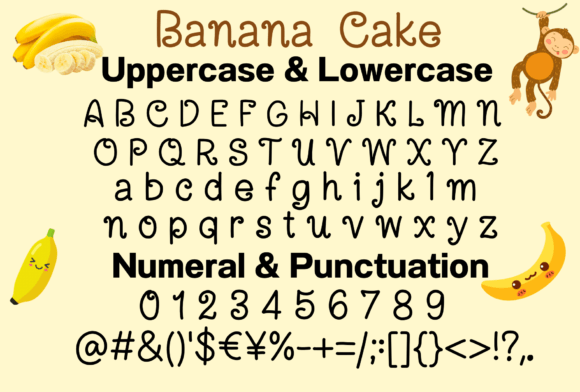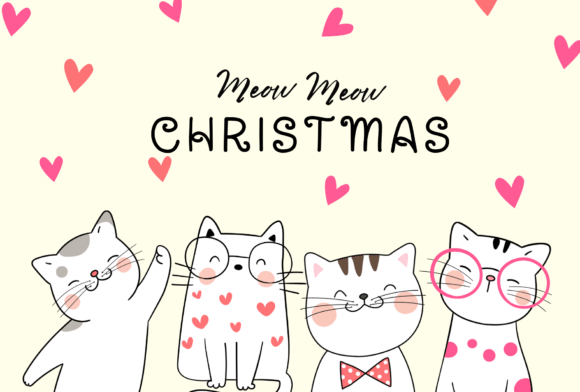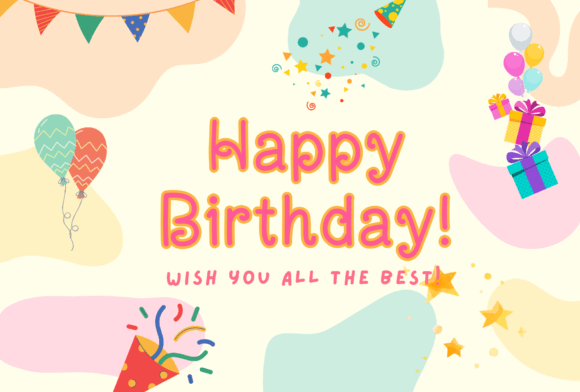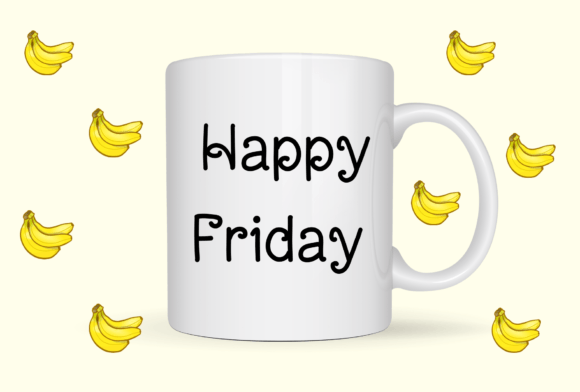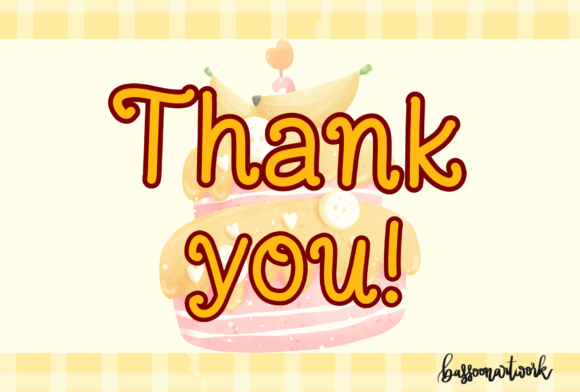
Getting Creative with the Perfect Font
Do you remember the feeling of excitement when you first started a new art project, surrounded by endless possibilities and a blank canvas waiting to be filled? For designers, this moment is all too familiar. It’s the spark that ignites the creative process, and the thrill of bringing a unique idea to life.
One of the most delightful ways to express this creativity is through typography. And that’s where the Banana Cake Font comes in – a charming, handwritten font that’s as sweet as its name suggests. This playful font is perfect for adding a personal touch to your designs, making it an ideal choice for special occasions like birthdays, Christmas, Easter, Mother’s Day, and Valentine’s Day.
As a designer, you’ll love the Banana Cake Font for its uniqueness and versatility. It’s a valuable addition to any font collection, and its adorable design makes it a must-have for creating eye-catching designs that stand out from the crowd.
Banana Cake Font Key Features
- Font Family: Banana Cake Font is a unique, handwritten font designed to evoke the feeling of a warm, comforting banana cake.
- Unique Characteristics: Features a playful, cursive script with a mix of uppercase and lowercase letters, making it ideal for adding a personal touch to designs.
Designer Review: Banana Cake Font
As a designer, I was excited to dive into the world of Banana Cake Font. Here’s my honest review.
- Unique and playful personality: Banana Cake Font has a quirky and whimsical feel that’s perfect for adding a touch of fun to your designs.
- Clean and modern aesthetic: Despite its playful personality, the font is clean and easy to read, making it suitable for a wide range of applications.
- Good for casual and creative projects: Banana Cake Font is ideal for projects that require a relaxed and casual tone, such as social media graphics, blog posts, and advertisements.
- May not be suitable for formal or professional projects: The playful personality of Banana Cake Font may not be suitable for formal or professional projects, such as business reports or academic papers.
- Limited font styles: While Banana Cake Font comes in several weights and styles, the options are limited compared to other fonts on the market.
Overall, I think Banana Cake Font is a great choice for designers who want to add a touch of whimsy to their projects. While it may not be suitable for all types of projects, it’s perfect for casual and creative endeavors. With a little creativity, you can use Banana Cake Font to create some truly unique and eye-catching designs.
The Banana Cake Font is a playful and whimsical font that is perfect for:
- Food blogs and recipes
- Wedding invitations and decorations
For the best results, use the Banana Cake Font in combination with bright colors and playful graphics to create a fun and engaging design.